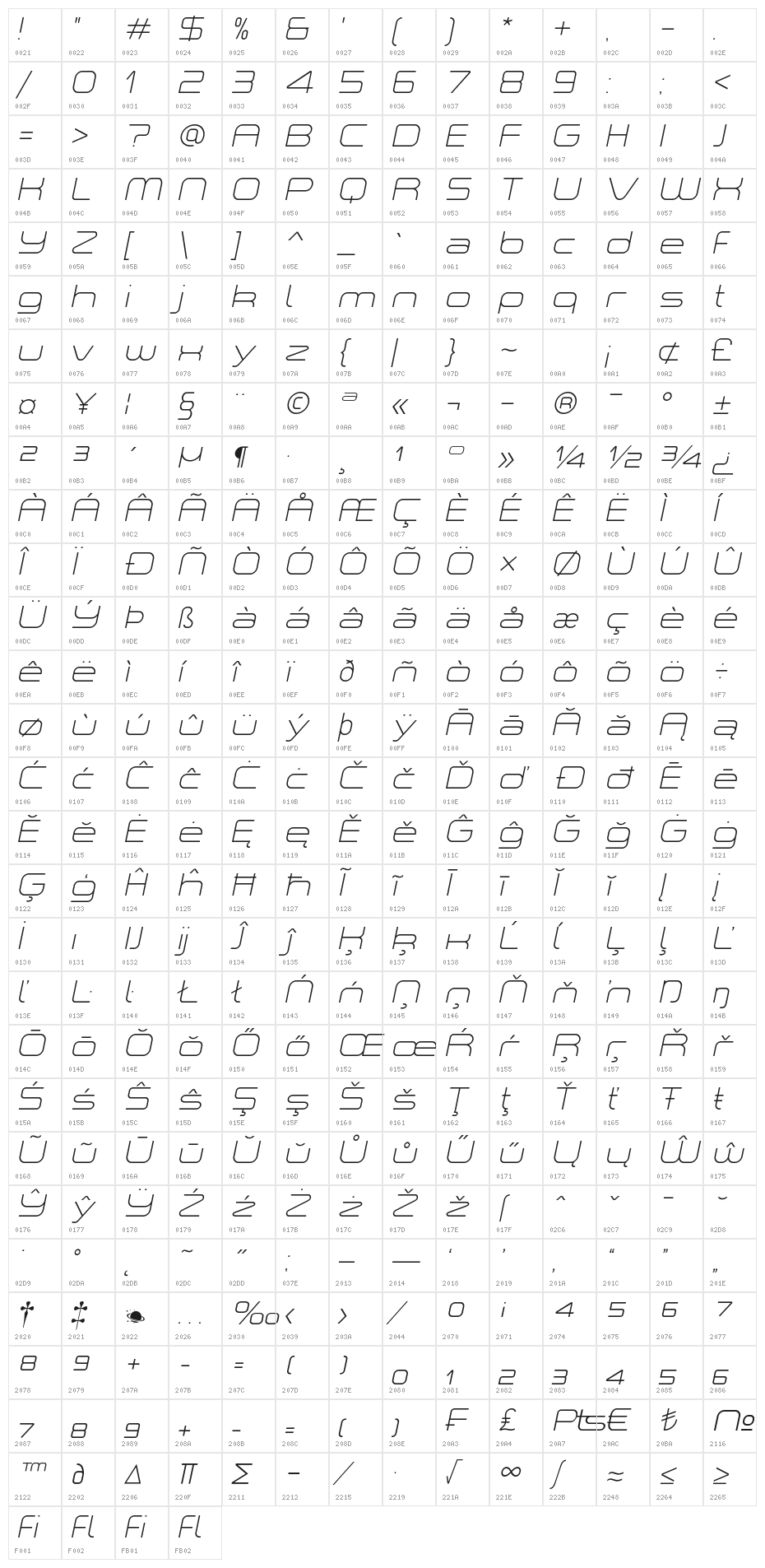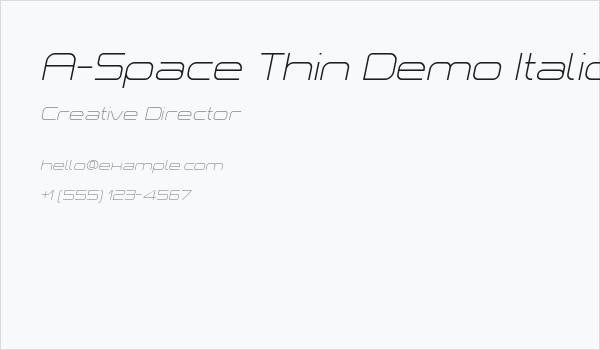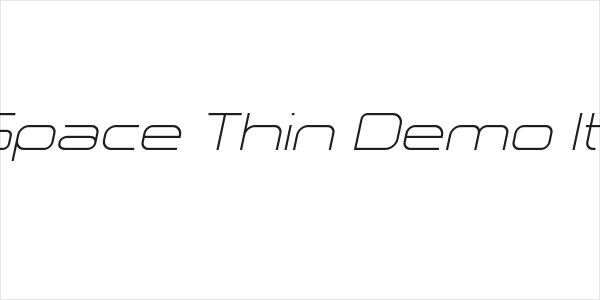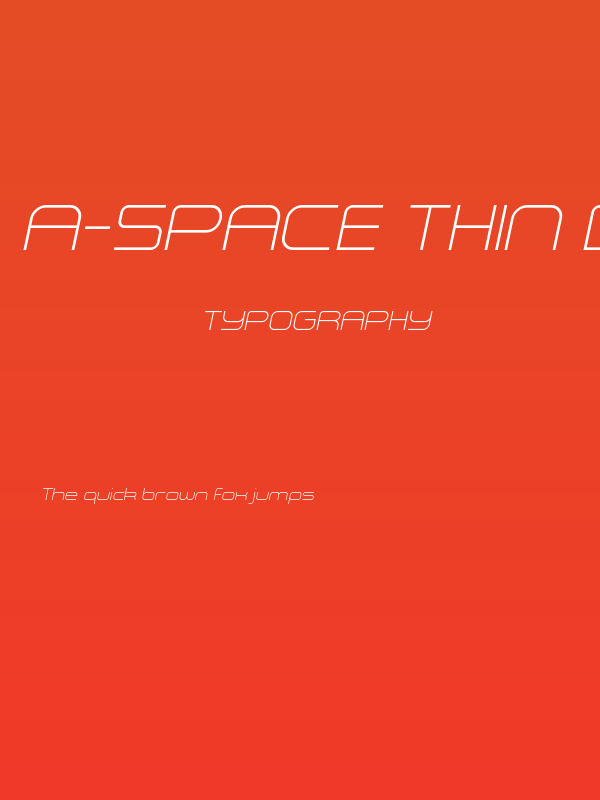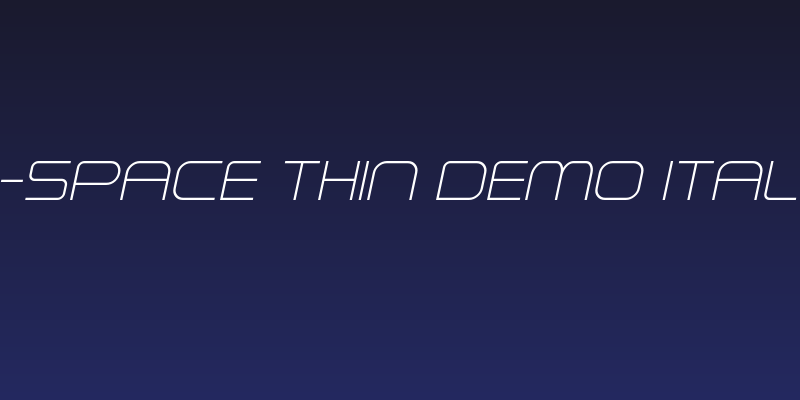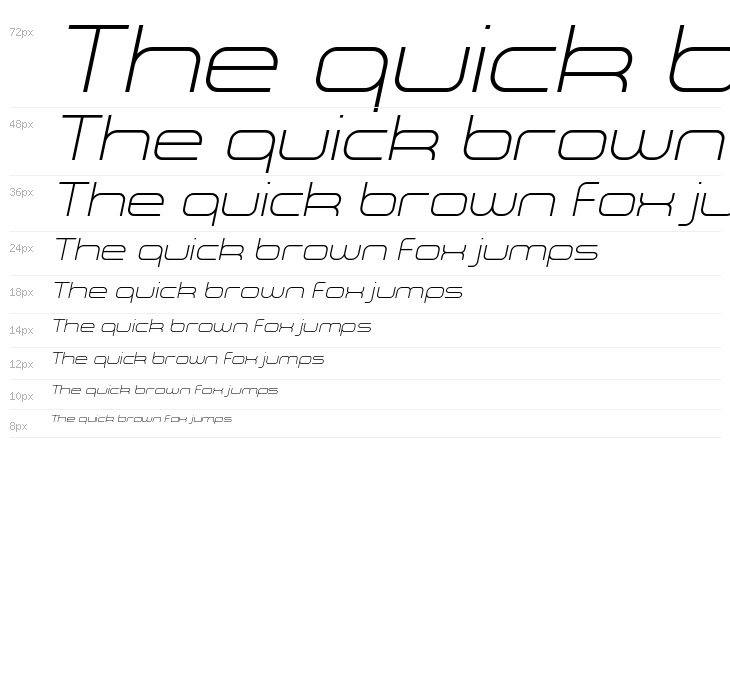
A-Space Thin Demo Italic Font
A-Space Thin Demo Italic Description
This font features a sleek, futuristic design with a thin, streamlined appearance. The characters are italicized, giving a sense of motion and modernity. The uppercase and lowercase letters maintain a consistent style, with rounded edges and a geometric structure. Numbers and special characters follow the same aesthetic, ensuring uniformity across all elements. The font's thin strokes and open spacing create a light and airy feel, making it suitable for contemporary and tech-oriented designs.
| Proposed Projects | Ideal for tech branding, modern web design, futuristic posters, and innovative product packaging. |